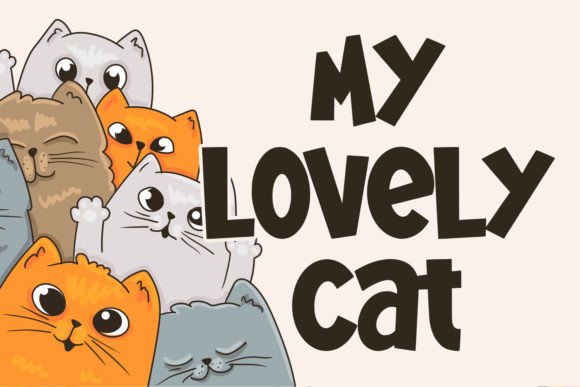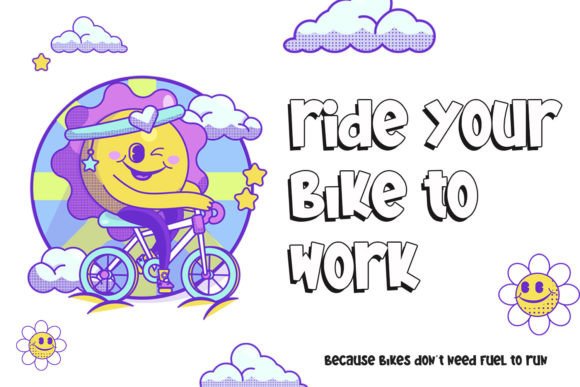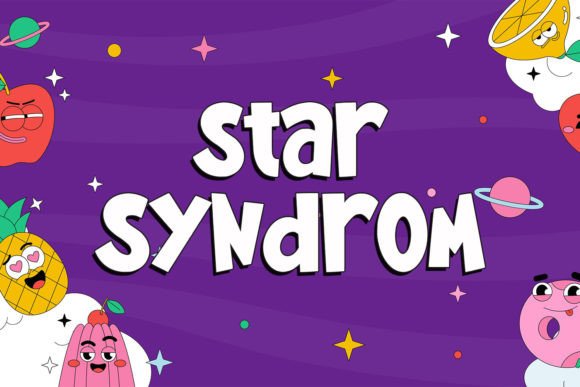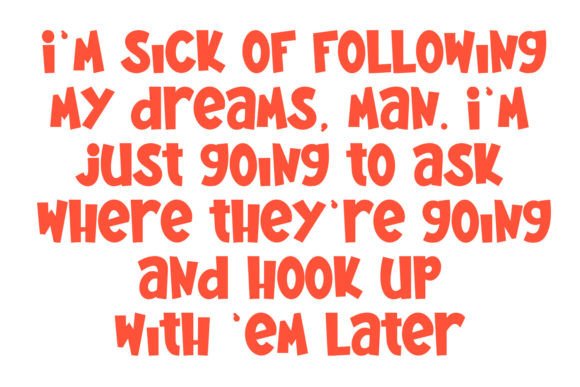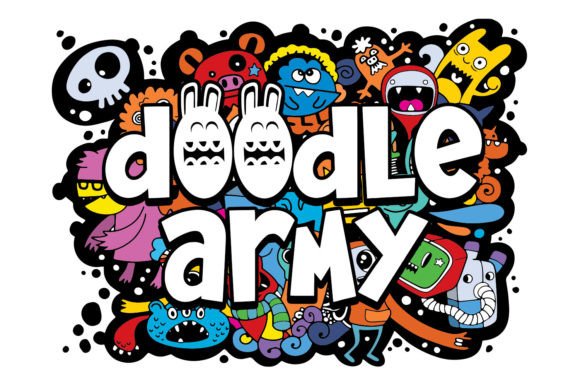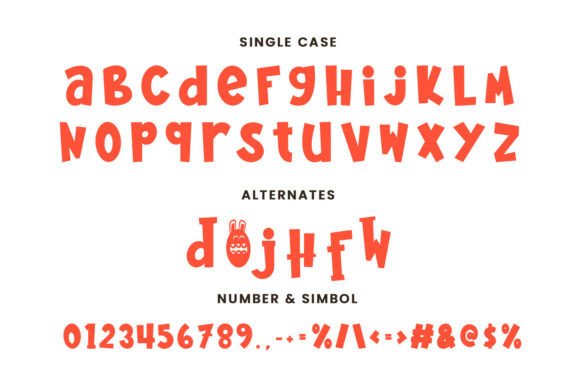
Introduction to Dolita House Font
Have you ever stared at a blank canvas, trying to spark inspiration for your next creative project? You’ve got a vision, but the right words just won’t come together. That’s where the perfect font can be a game-changer. Imagine a font that’s not just visually striking, but also versatile and easy to work with – that’s exactly what the Dolita House Font has to offer.
With its bold stroke, fun character, and a touch of ligatures and alternates, this font is designed to give your creative work an extra boost. Whether you’re crafting a logo, designing social media graphics, or working on a book title, Dolita House Font is the perfect design resource to elevate your project. And with support for over 100 languages, you can take your message global with confidence.
Key Features of Dolita House Font
- Unique, hand-drawn design for a creative project, perfect for artists and designers.
- High-quality font with a transparent background, ideal for use on various design resources.
- Designed in a modern style, suitable for use in a variety of creative projects, from branding to editorial design.
- Includes a range of glyphs and characters, including uppercase and lowercase letters, numbers, and punctuation marks.
Honest Review: Dolita House Font
I recently stumbled upon the Dolita House Font and was excited to give it a try. As a designer, I’m always on the lookout for new design resources to elevate my creative projects. In this review, I’ll share my honest thoughts on this font.
- ✨ Beautiful, hand-drawn design that adds a touch of elegance to any project
- ✨ High-quality font files that are crisp and clear, even when used on a transparent background
- ⚠️ Limited character set, which may not be suitable for extensive writing projects
- ⚠️ Some users may find the font too ornate or overbearing, depending on the project’s tone
Overall, I’m impressed with the Dolita House Font. It’s a great addition to any designer’s toolkit, especially for creative projects that require a unique touch. While it may not be suitable for every project, I think it’s a great option for those looking to add some personality to their designs.
How to Use Dolita House Font
The Dolita House Font is a versatile and high-quality design resource perfect for creative projects. With its unique style and transparent background, it’s ideal for various applications.
Common use cases for the Dolita House Font include social media graphics, presentations, reports, and creative projects where a unique and high-quality design is required.
Alternatives to Dolita House Font
Pacifico is a high-quality script font that can be used for a variety of creative projects, including invitations, wedding designs, and social media graphics. It has a transparent background, making it ideal for overlaying on images or videos. When to use: for a romantic or elegant design style.
Pacifico and Dolita House Font share a similar handwritten feel, but Pacifico has a more refined and polished look. Pacifico is a free download from Google Fonts, while Dolita House Font is a paid font.
Great Vibes is a modern script font that is perfect for creative projects that require a fun and playful vibe. It has a transparent background and can be used for social media graphics, posters, and advertisements. When to use: for a young and energetic design style.
Great Vibes has a more dynamic and energetic feel compared to Dolita House Font, making it ideal for projects that require a lot of movement and energy. Great Vibes is also a free download from Google Fonts.